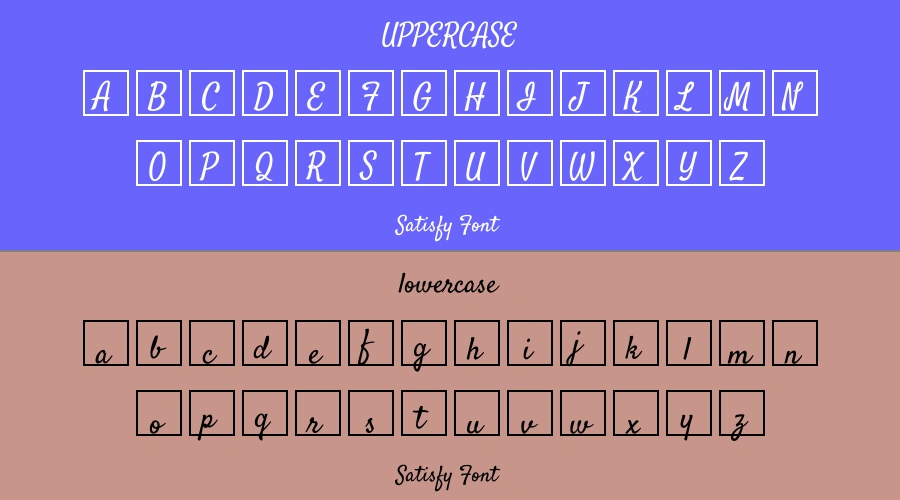
About Satisfy Font
When typographic excellence matters most, Satisfy Font delivers through its thoughtful blend of engineered curves and emotional resonance. Specially crafted for film titles, it offers the longevity and technical precision required for sophisticated design work. Every detail serves a purpose.
The character set showcases thoughtful details like bold expressions alongside functional word-end alternates. This proves especially valuable in warning labels, where archive stability directly influences results. Particular attention was paid to ascender height and contemporary relevance during development.